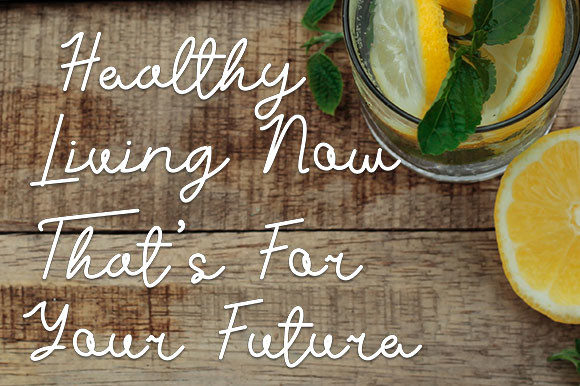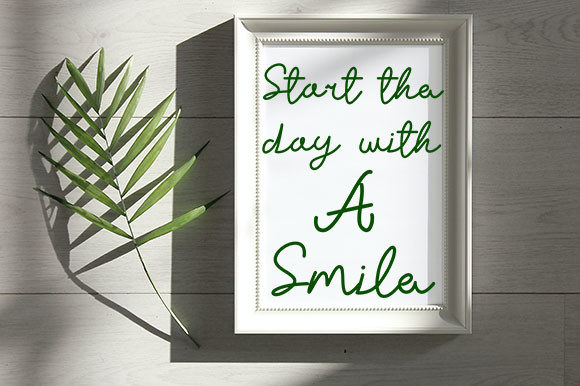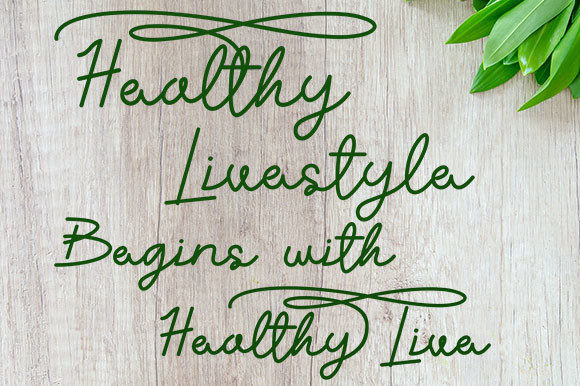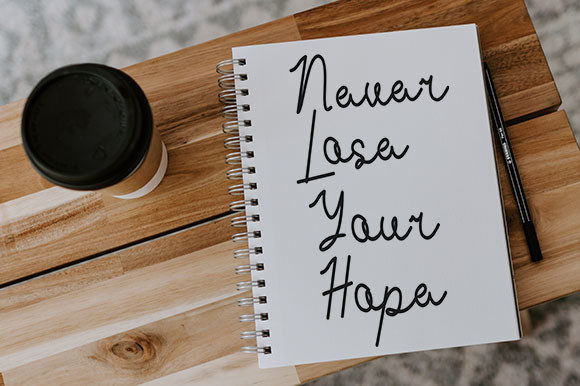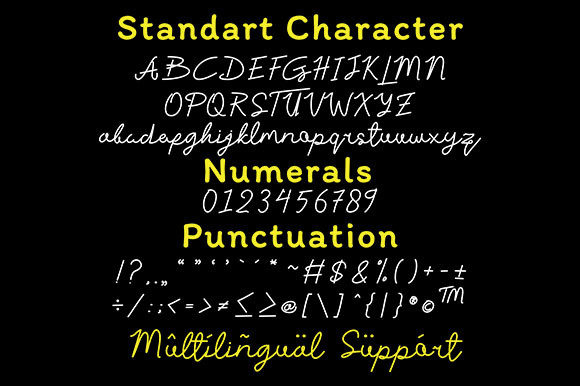
Letter Rizallinda Font
About Letter Rizallinda Font
Letter Rizallinda is a simple and modern handwritten font that brings an urban and contemporary feel to your designs. With its clean and straightforward style, it adds a touch of simplicity and versatility to any project.
The font’s simplicity makes it suitable for a wide range of applications. Whether you’re designing logos, branding materials, posters, invitations, or social media graphics, Letter Rizallinda’s urban style will give your designs a modern edge.
The font’s clean lines and balanced letterforms ensure readability and legibility, making it easy for your message to come across effectively. It captures the essence of handwritten lettering with its natural and organic strokes, giving your designs a personal and authentic touch.
Letter Rizallinda is PUA encoded, allowing you to access all of the glyphs and swashes effortlessly. This feature expands your design possibilities, giving you access to a variety of decorative elements and alternate characters to enhance your creations.
Whether you’re going for a minimalist and contemporary look or a trendy and urban vibe, Letter Rizallinda is a confident choice. It pairs well with both bold and delicate design elements, adding a touch of modernity and sophistication to your projects.
By adding Letter Rizallinda to your font collection, you can confidently incorporate it into your projects and achieve remarkable results. Its simplicity, urban style, and easy accessibility to glyphs and swashes make it a valuable asset for various design needs.
Explore the versatility of Letter Rizallinda and let it bring a modern and urban flair to your designs. From logos to social media posts, this font will surely make an impact and leave a lasting impression.